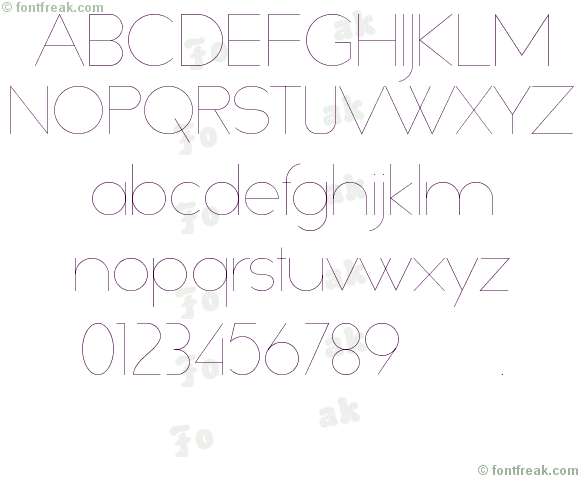
Slim Extreme
The Slim Extreme font by Roland Huse is an eye-catching display typeface that falls into the sans-serif category. This font is characterized by its slender and elongated strokes, which create a modern and sophisticated aesthetic. The stroke weight is consistently thin, resulting in a clean and minimalist appearance, while the ample letter spacing enhances readability, making it ideal for various design applications. The overall design is devoid of decorative elements, allowing the simplicity of the typeface to shine through, making it a versatile choice for contemporary projects.
Slim Extreme is particularly well-suited for a range of creative endeavors. Graphic designers can leverage its elegant style for fashion advertisements or branding projects where a sleek look is paramount. Small business owners may find it perfect for restaurant menus, giving a sense of refinement to their offerings. Additionally, this font can elevate wedding invitations, providing a touch of modern elegance that appeals to couples looking for something unique. Content creators could also utilize Slim Extreme for digital graphics or promotional materials, ensuring their visuals stand out on social media platforms.
What sets Slim Extreme apart is its ability to blend simplicity with sophistication. Its slender form and clean lines make it a striking choice for anyone looking to convey a modern aesthetic while maintaining clarity and elegance in their designs.